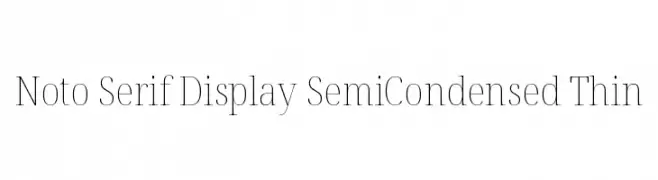
A refined serif font with thin strokes and a semi-condensed style.
A modern, thin, and semi-condensed font with a clean and minimalist design.
A thin, semi-condensed serif font with a modern and elegant style.